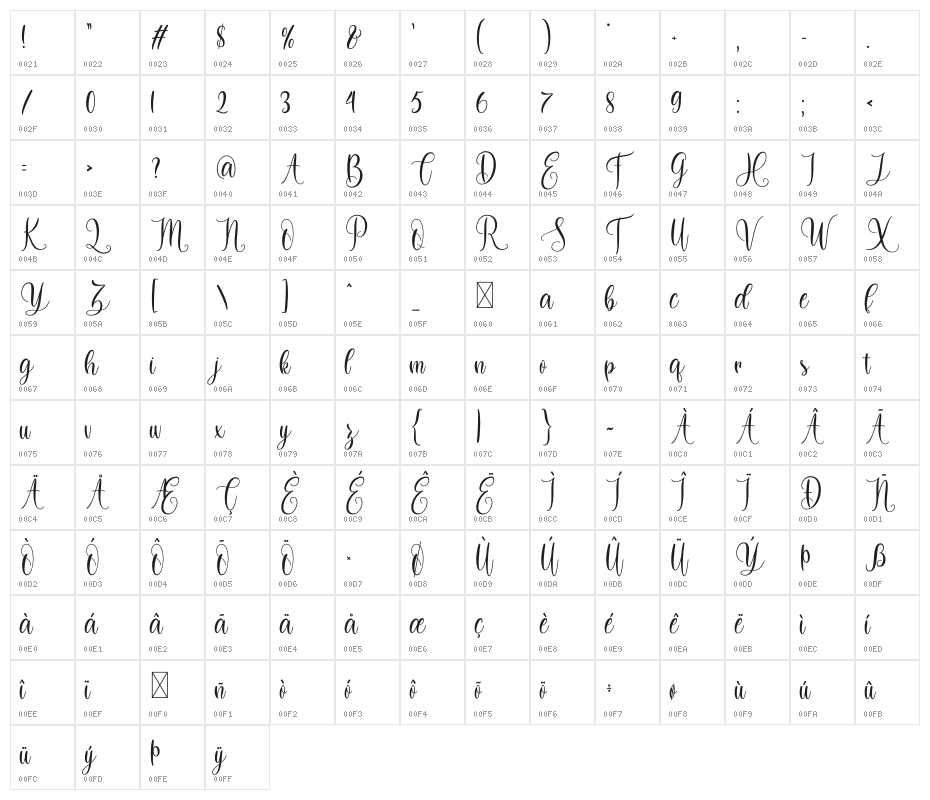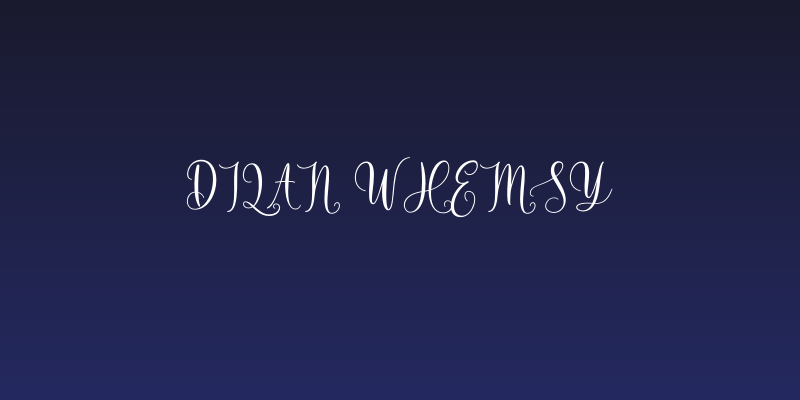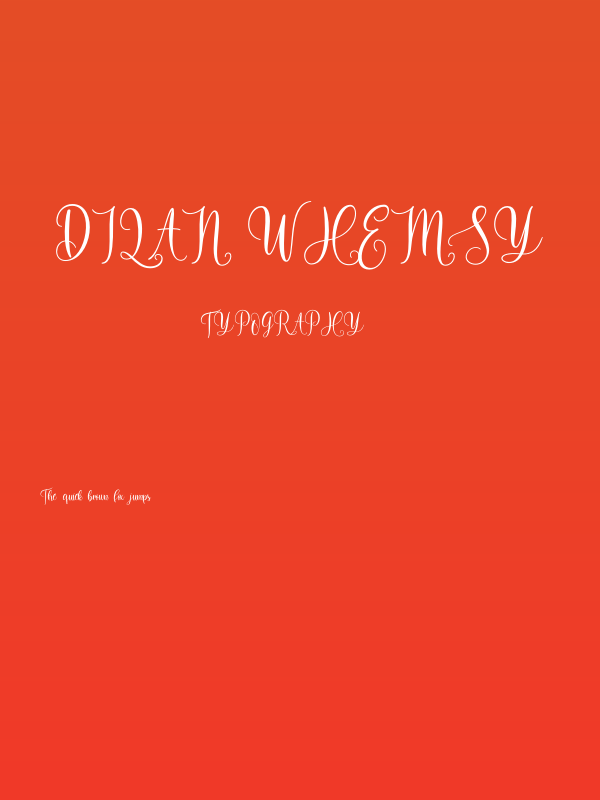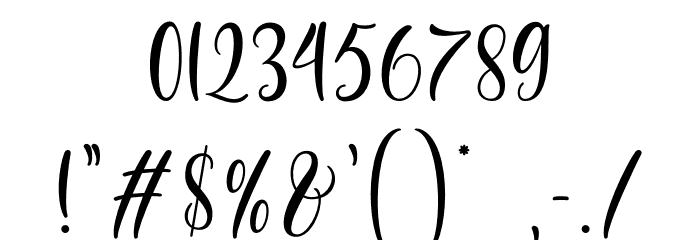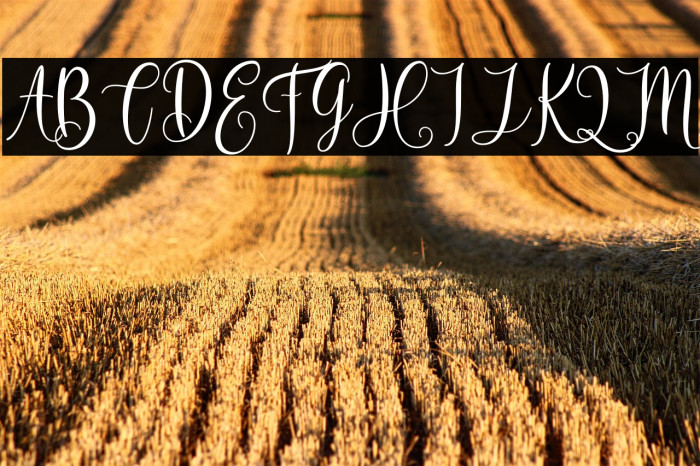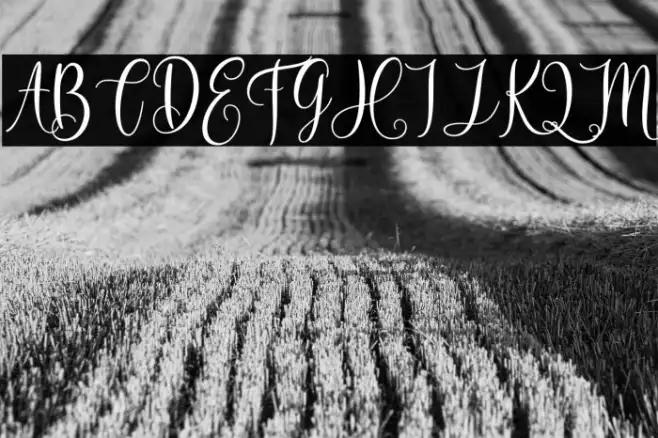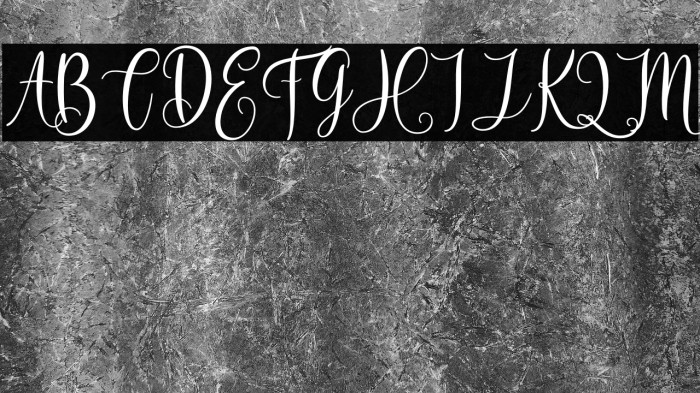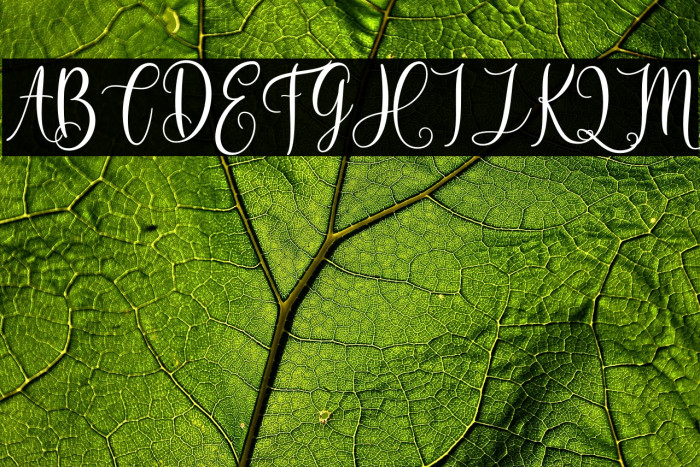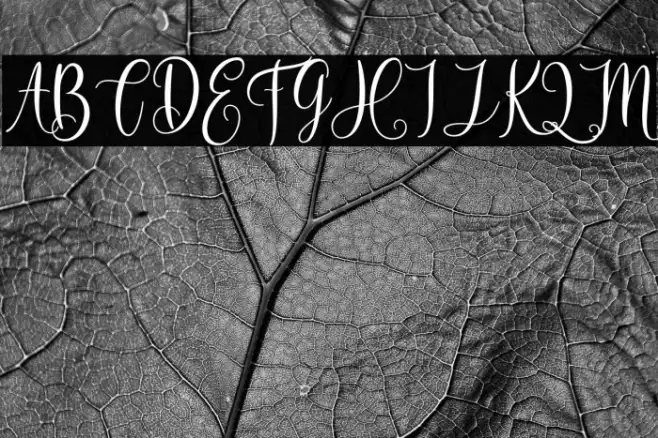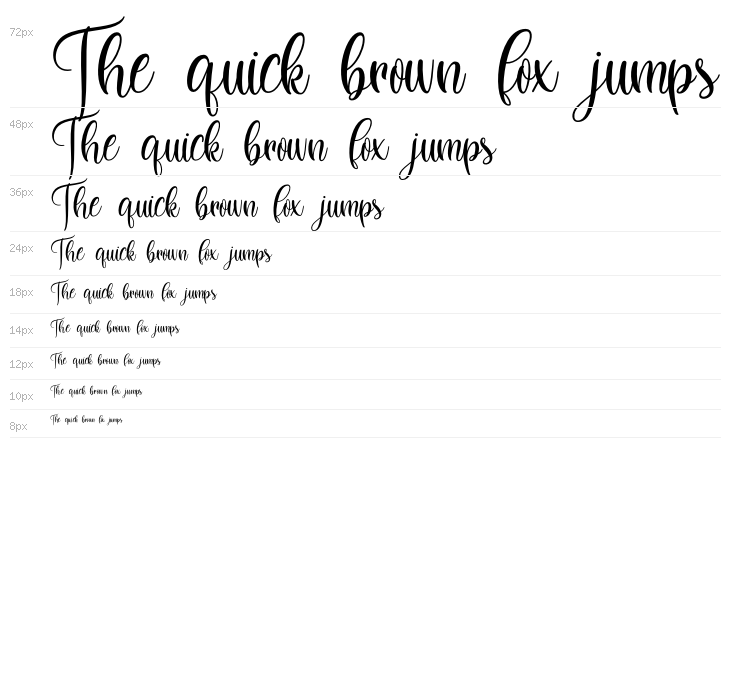
Dilan Whemsy Font
Dilan Whemsy Description
This font features an elegant and whimsical script style, characterized by flowing, interconnected letters with delicate curves and flourishes. The uppercase letters are particularly ornate, with loops and swirls that give a sense of movement and grace. The lowercase letters maintain a consistent style, with smooth, rounded forms that enhance readability while retaining a decorative flair. Numbers and special characters are designed to match the overall aesthetic, ensuring a cohesive look across all text. The font's playful yet sophisticated appearance makes it suitable for a variety of creative applications.